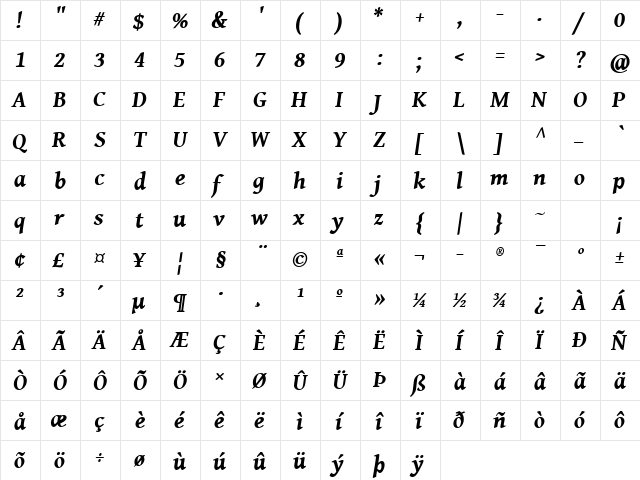
Gentium Book Basic Bold Italic Font Preview
| Foundry | SIL International |
| Designer | J. Victor Gaultney and Annie Olsen |
Design Context for Gentium Book Basic Typeface
Gentium Book Basic takes a measured approach to typography — its balanced proportions and neutral character make it a reliable workhorse for both digital and print work. The dynamic lean of this cut emphasises speed and emphasis in any layout. Its bold stroke weight gives it real presence on the page.
Pro Tip: Try Gentium Book Basic for annotation and caption copy alongside an upright companion — the contrast in angle creates a dynamic but ordered typographic system.